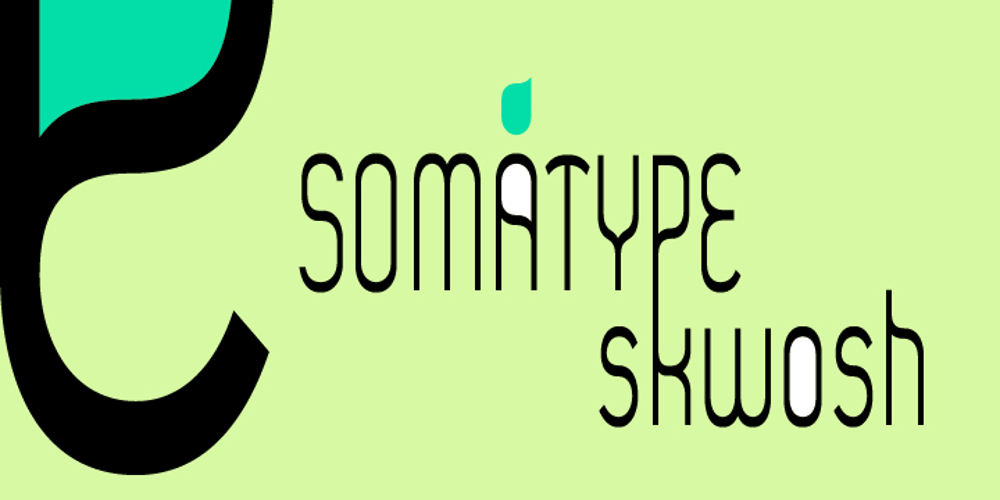
Somatype Skwosh Font Family was designed by published by ArtyType. Somatype Skwosh contains 3 styles and family package options. Somatype Skwosh was born out of a desire to ignore traditional rules for condensed character forms in favour of contrasting vertical and horizontal thicknesses and the interesting shapes produced by re-scaling along only one axis. Somatype Bold was the starting point.